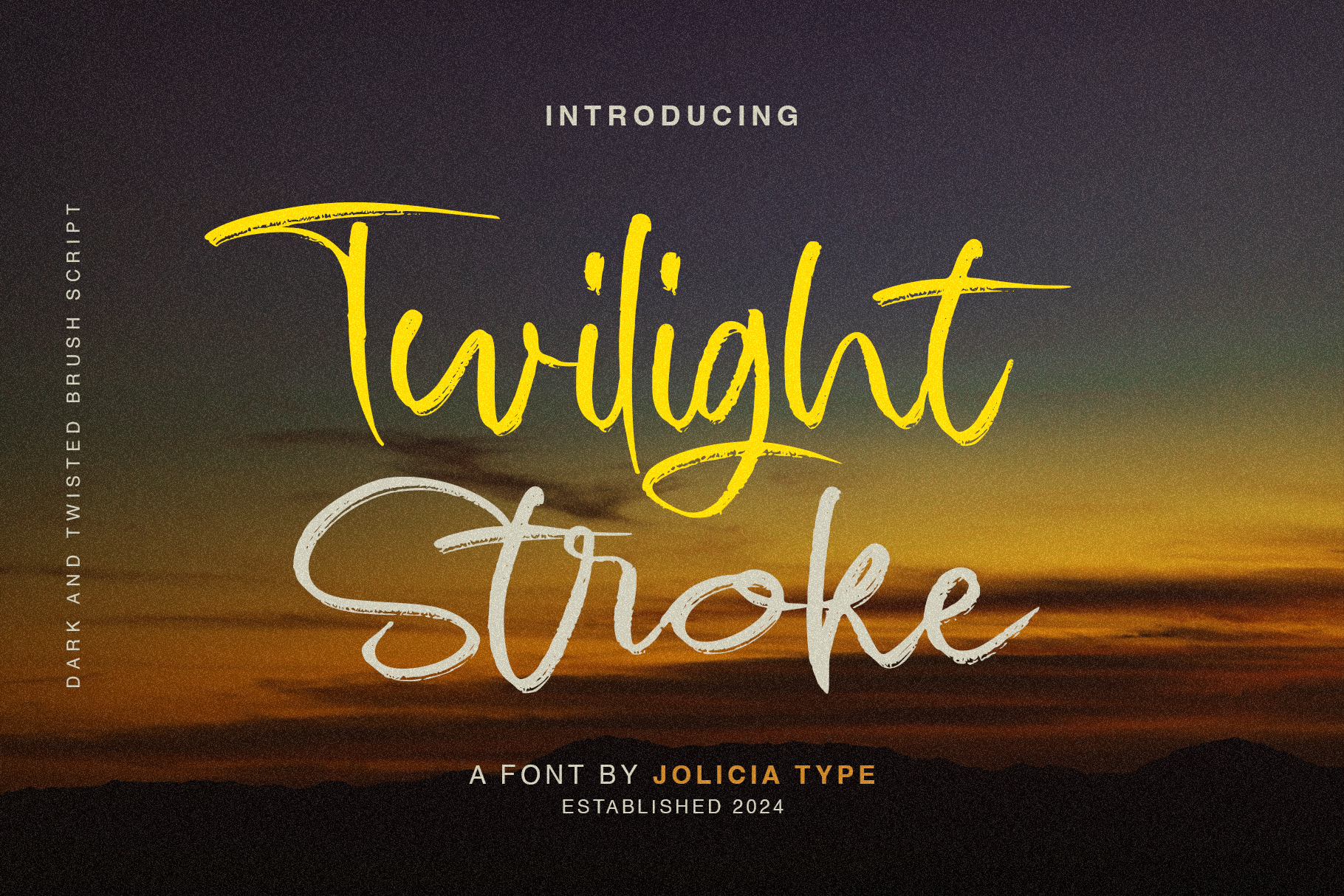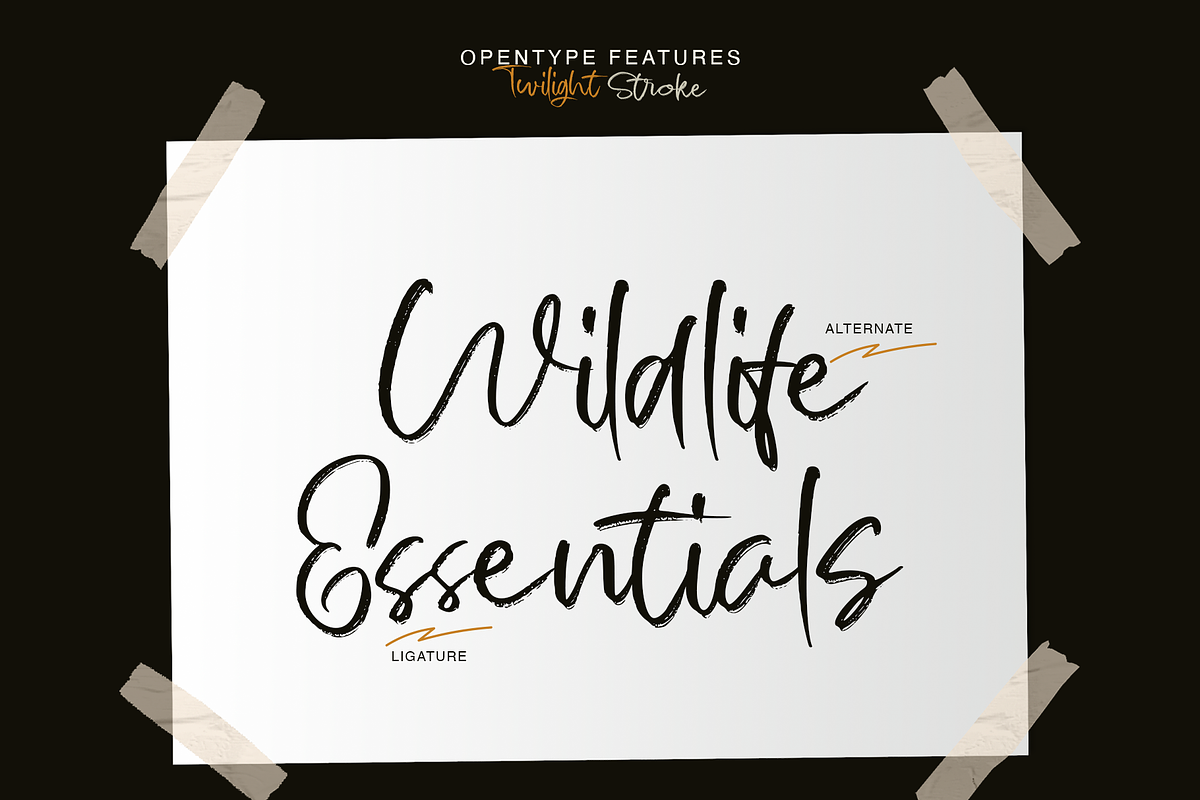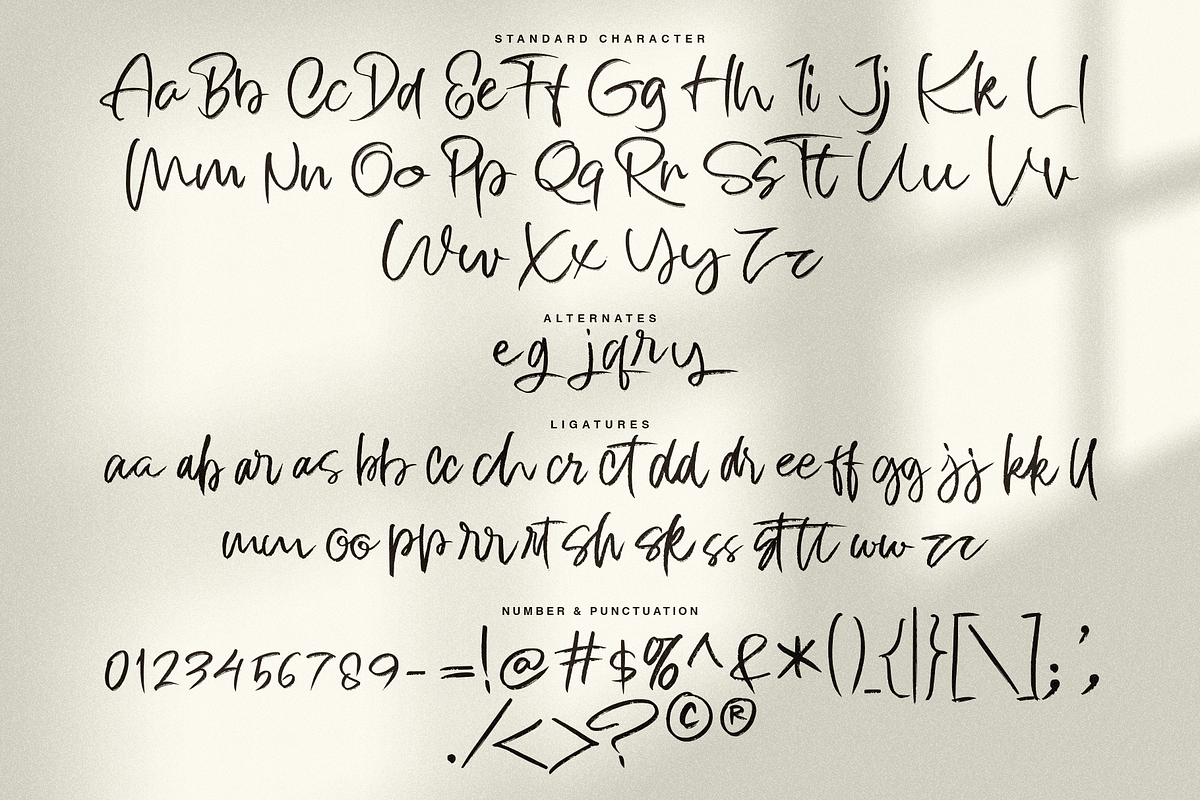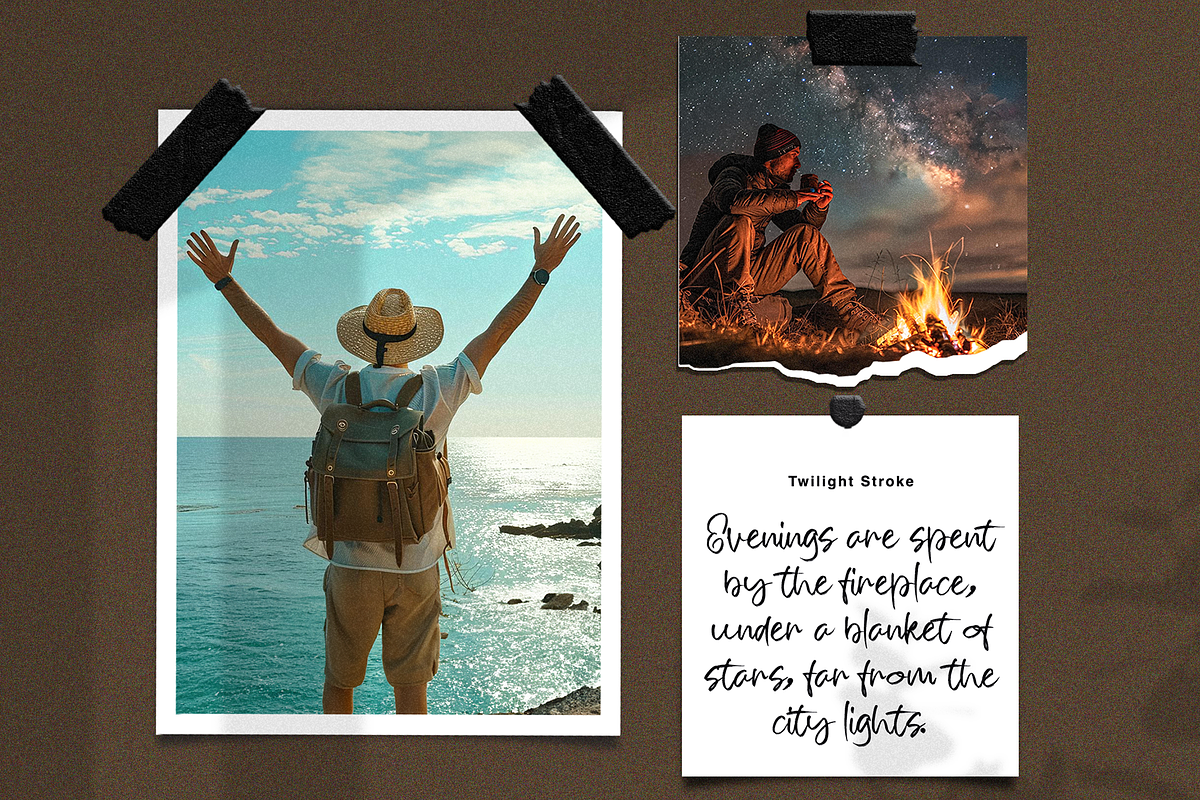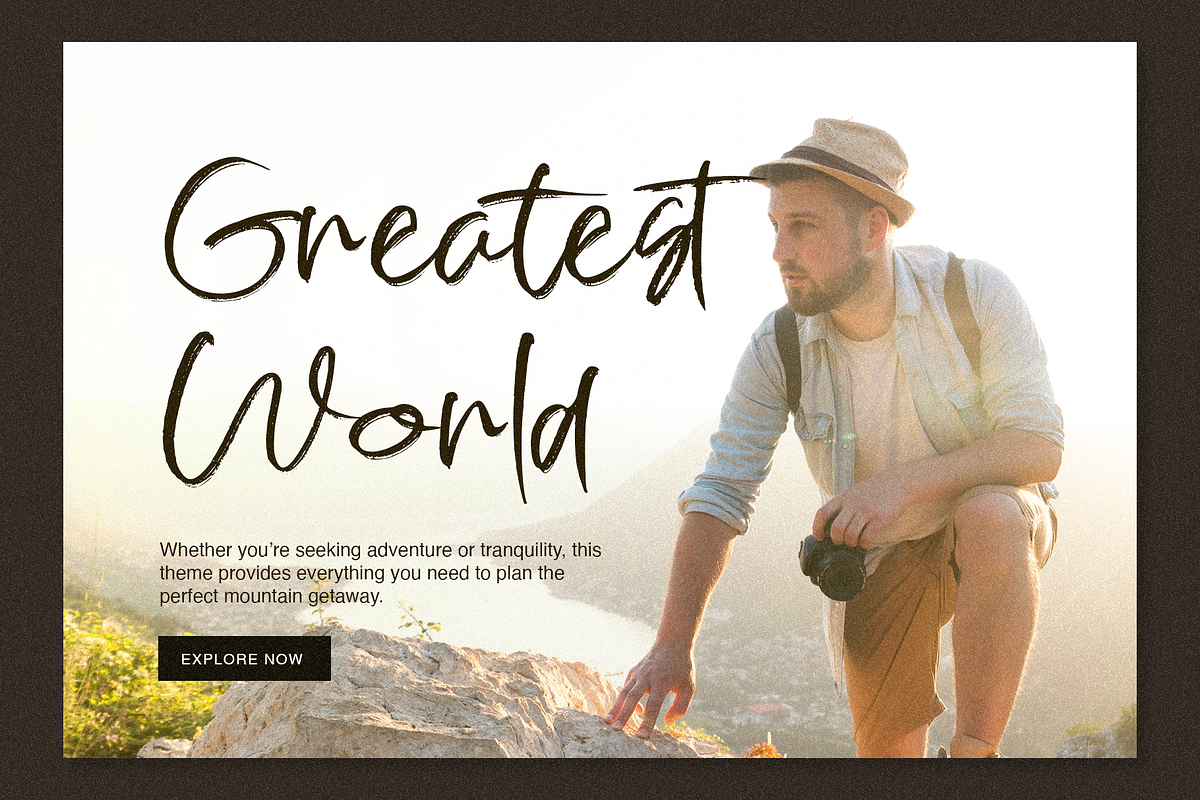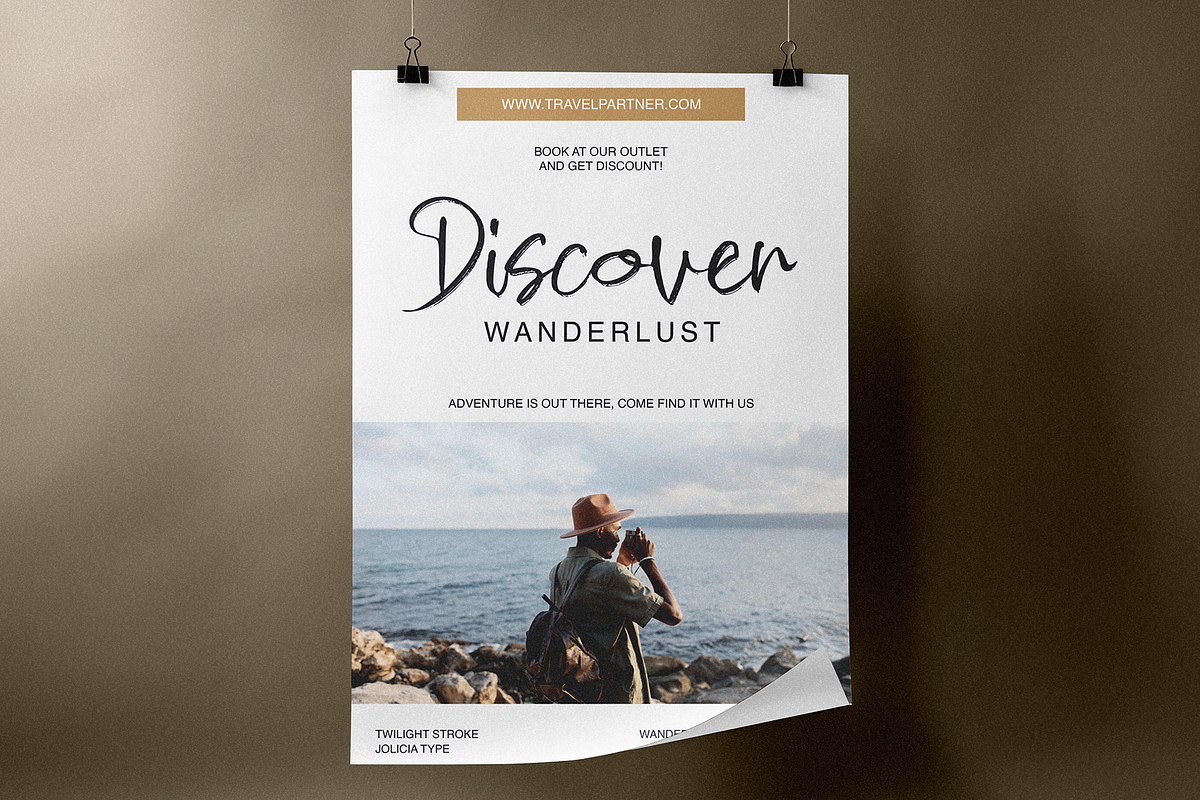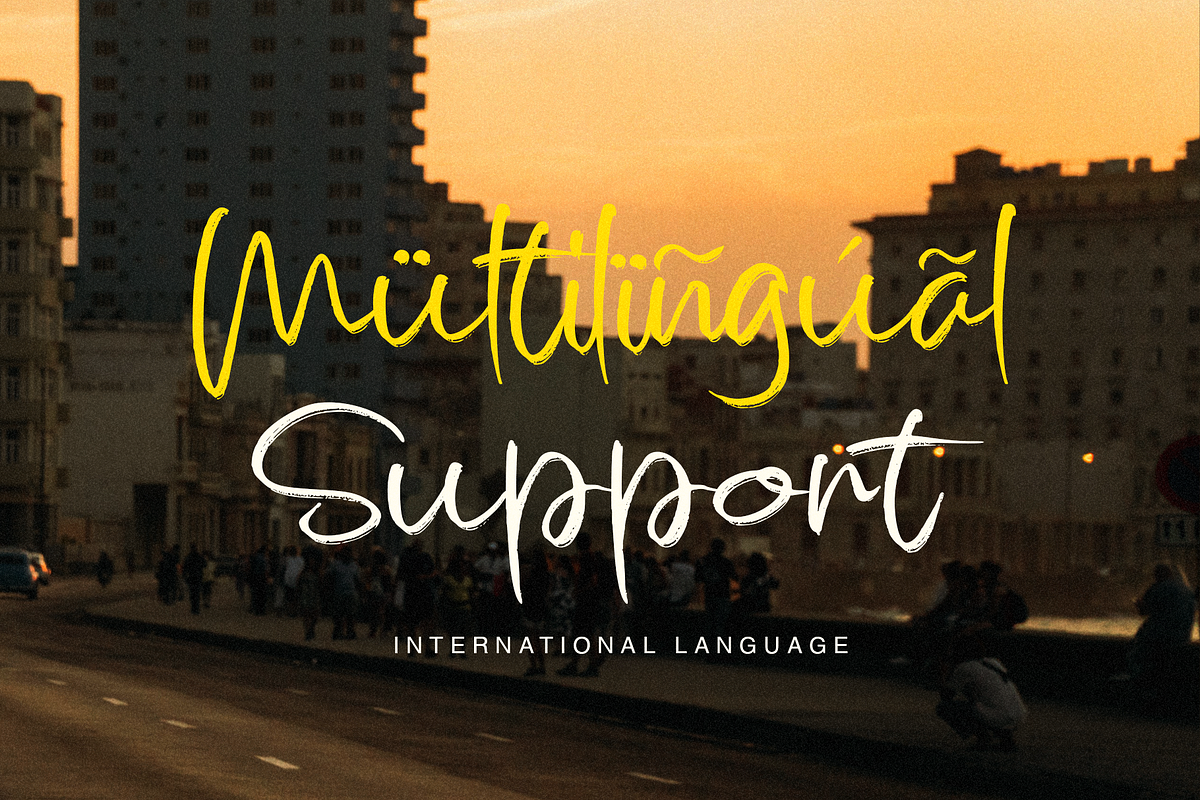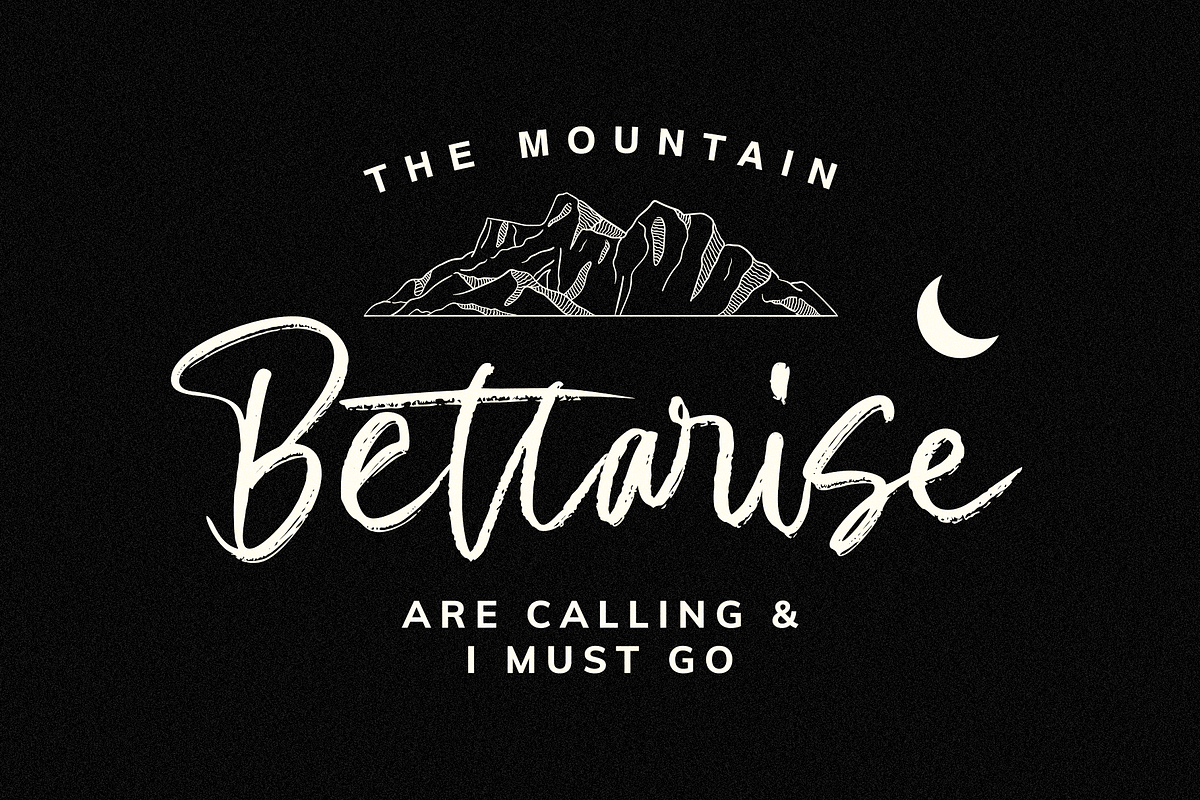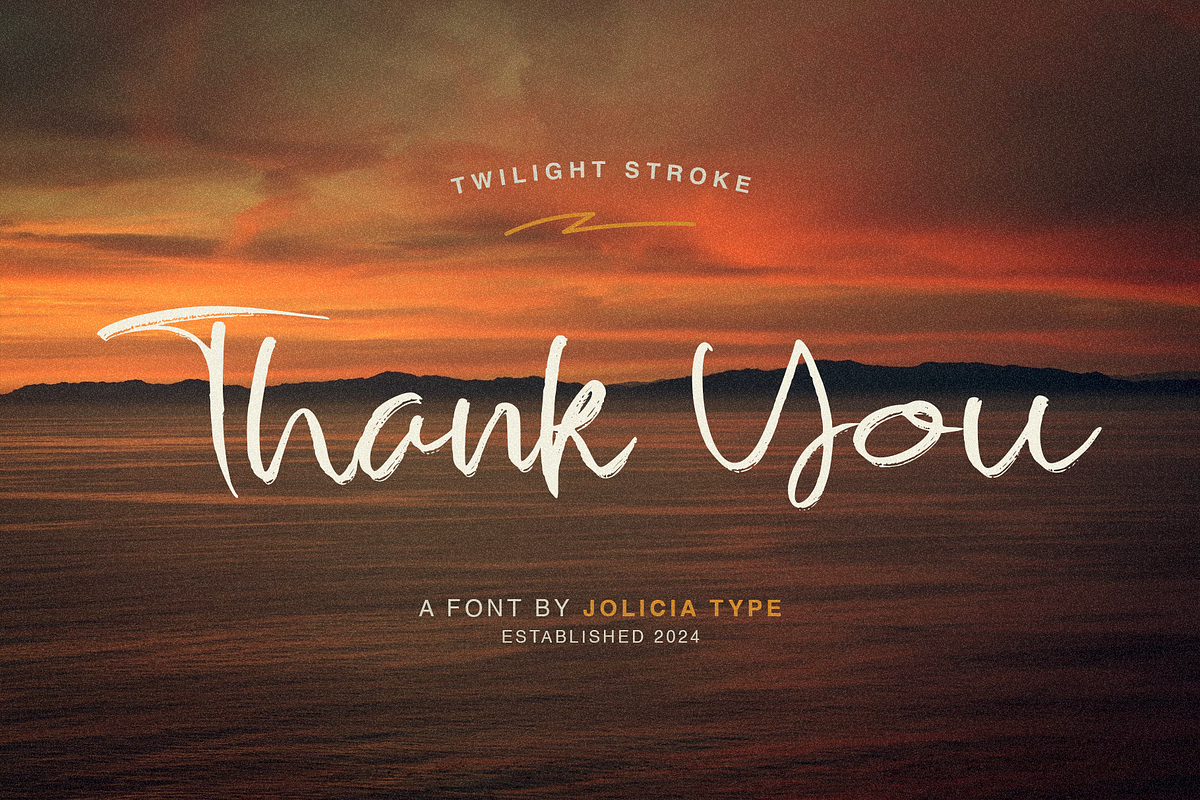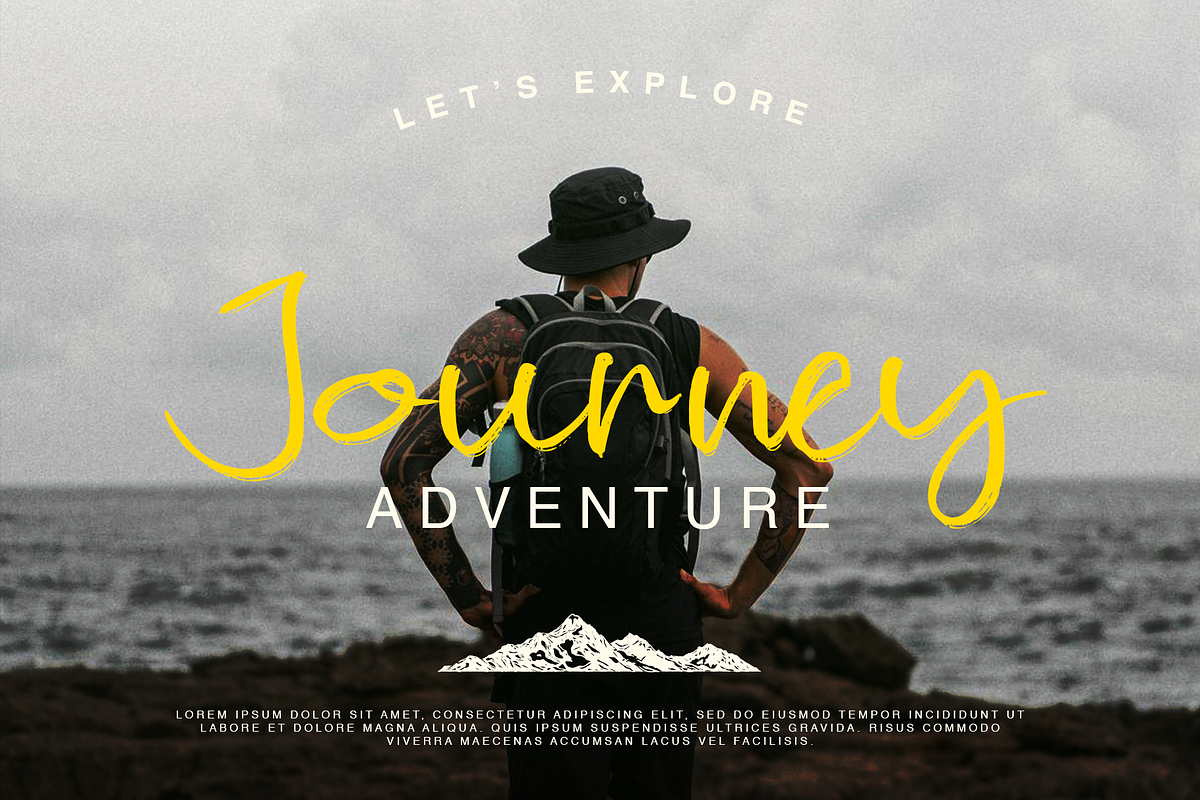
Twilight stroke | Brush Script Font
Twilight Stroke is a script brush font that showcases dynamic and energetic brush strokes. Each letter is crafted with flowing and bold details, reflecting a balance of artistic freedom and visual strength. Perfect for creative projects like branding, packaging, or social media design, Twilight Stroke adds a daring and expressive touch to every piece